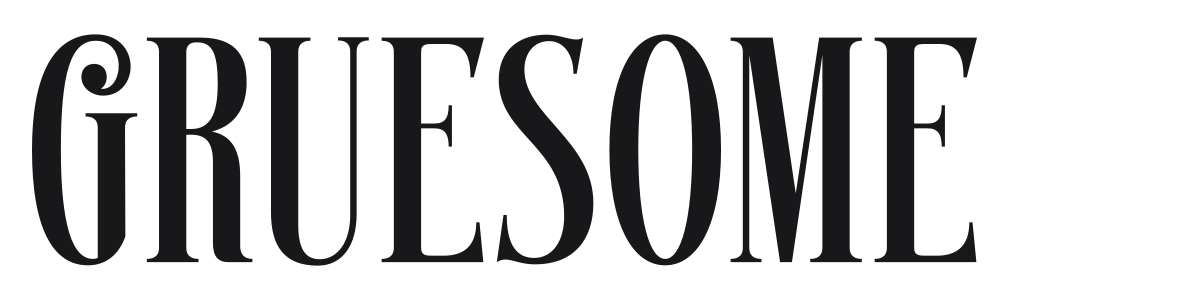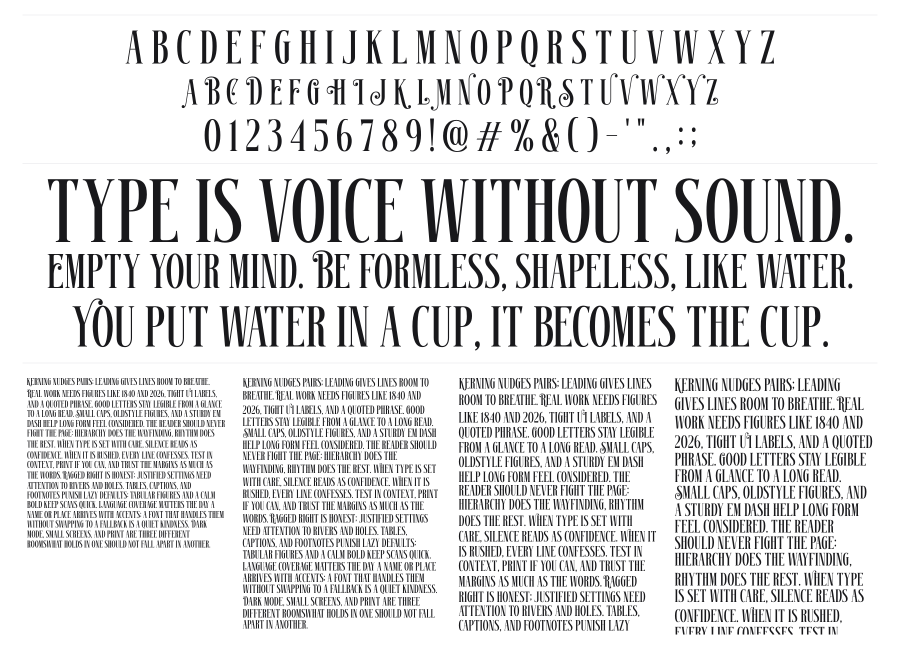
Gruesome
Gruesome is a condensed display serif built on extreme stroke contrast, with razor-thin hairlines set against heavy vertical stems in the didone tradition. The tall, narrow proportions and tight spacing give it a commanding editorial presence reminiscent of high-fashion magazine headlines. It carries the drama of 19th-century modern serifs filtered through a contemporary lens.